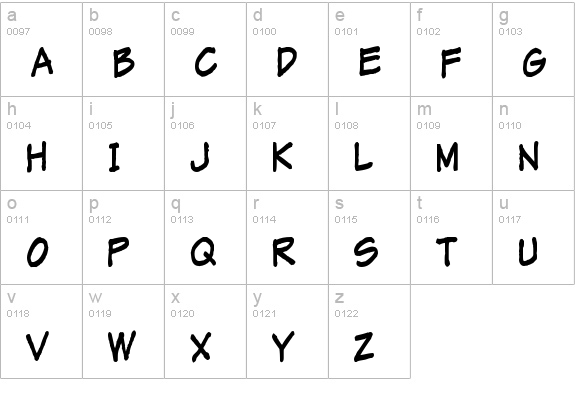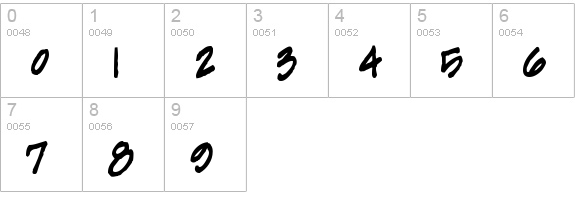
MarkerMan Font Details
Introducing MarkerMan, a strikingly unique font that is bound to make a statement in your design projects. With its bold and expressive strokes, this font captures the essence of hand-drawn markers, giving your text a vibrant and energetic appearance. MarkerMan is perfect for adding a touch of creativity to your graphics, whether it's for posters, logos, or social media posts. Its irregular letterforms and slightly uneven lines offer a handcrafted feel, adding a personal and distinctive touch to your designs. But what makes MarkerMan even more appealing is the fact that it is absolutely free! Yes, you read that right. This exceptional font is freely available to download at FontsMarket.com, allowing you to enhance your creations without any financial constraints. With MarkerMan, you have endless possibilities at your fingertips. Let your imagination run wild and experiment with different colors, sizes, and styles to create eye-catching typography that will captivate your audience. Whether you're a professional designer or simply a creative enthusiast, this font is sure to become an invaluable addition to your toolkit. So don't miss out on the opportunity to elevate your design projects with MarkerMan. Download it for free today at FontsMarket.com and unleash your creativity like never before.